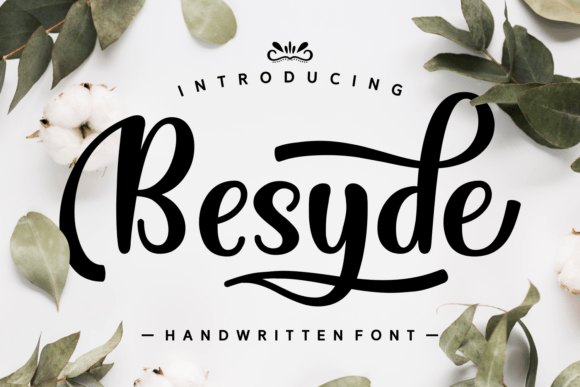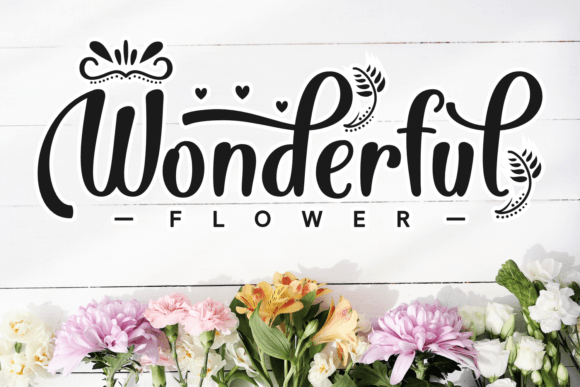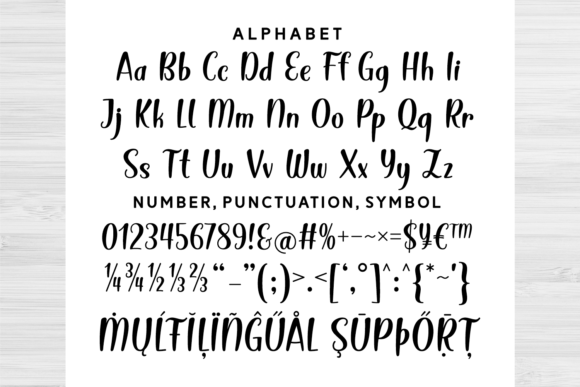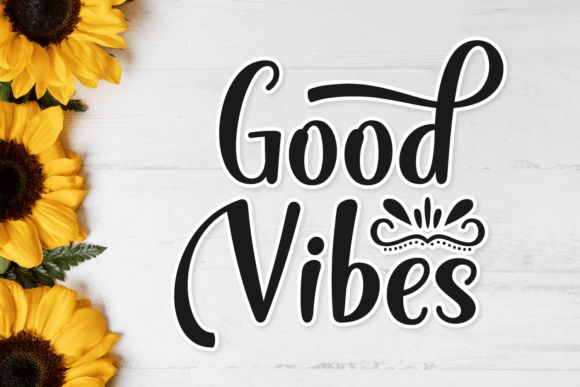
Besyde Font
Add Bold Elegance with Besyde Font
Besyde Font is a bold and beautiful handwritten typeface that brings a feminine and romantic touch to your creative projects. Its strong yet graceful strokes make it perfect for creating elegant typography that stands out. Whether you are designing logos, greeting cards, invitations, or watermarks, Besyde Font adds a polished and sophisticated feel.
Moreover, the font’s flowing letterforms combine boldness with delicacy, giving your work a unique charm that draws attention.
Versatile Uses for Besyde Font
Besyde Font is ideal for a variety of design applications, including:
• Logos and brand identities
• Wedding invitations and event stationery
• Watermarks for photography and digital content
• Posters, flyers, and promotional materials
• Product packaging and elegant branding
Thanks to its bold and feminine handwritten style, BesydeFont adds warmth and sophistication to your creative work.
It also features balanced kerning and clear spacing, ensuring your text remains readable and visually appealing across different sizes and formats.
Why Designers Choose Besyde Font
Designers and creatives appreciate BesydeFont for its combination of boldness and femininity. It adds a personal and professional touch that elevates any project. Whether you are a professional designer or a hobbyist, BesydeFont helps you create beautiful and memorable typography.
Use BesydeFont to bring bold elegance and romantic charm to your next creative project.